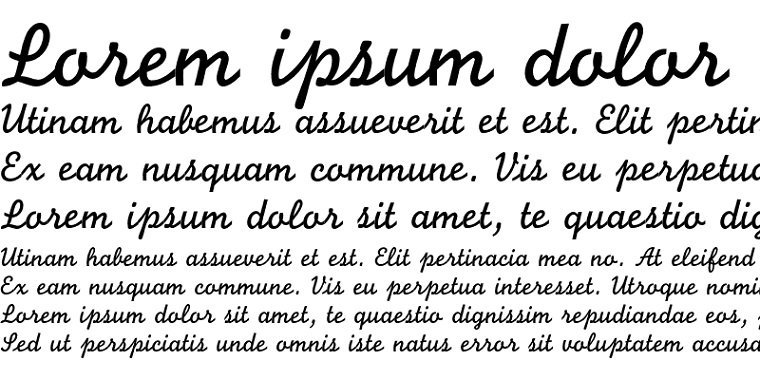
Monoline Font is like a magic pencil that effortlessly creates beautiful, elegant letters. It’s as if your words are dancing gracefully on the paper, making your writing look incredibly stylish. This font is perfect for adding a touch of class and sophistication to your projects.
Whether creating fancy invitations, designing a chic logo, or making your school assignments look extra special, Monoline Font is your secret weapon. It’s easy to use and turns your ordinary words into a work of art. People love it because it adds a dash of elegance to anything you write or design.
Monoline Font stands out as a timeless classic in a world full of fonts. It’s like the little black dress of the typography world – always in style and suitable for any occasion. So, if you want your words to look effortlessly elegant, Monoline Font is the way to go!